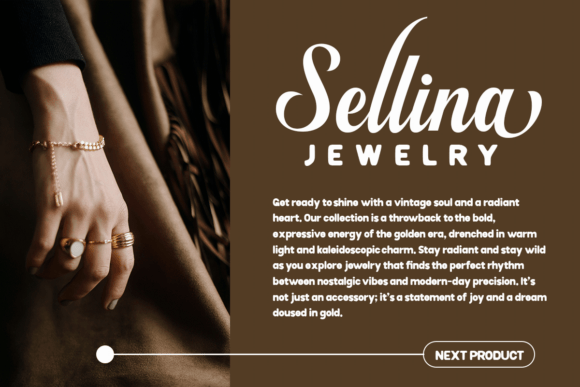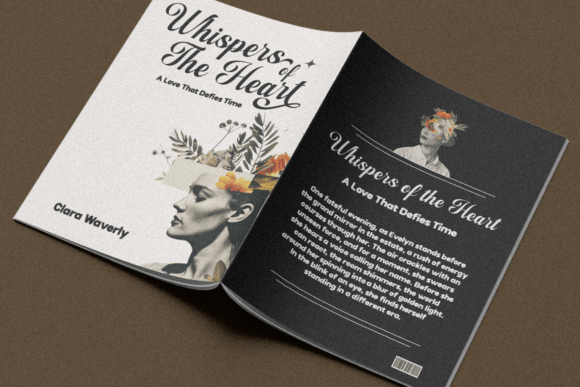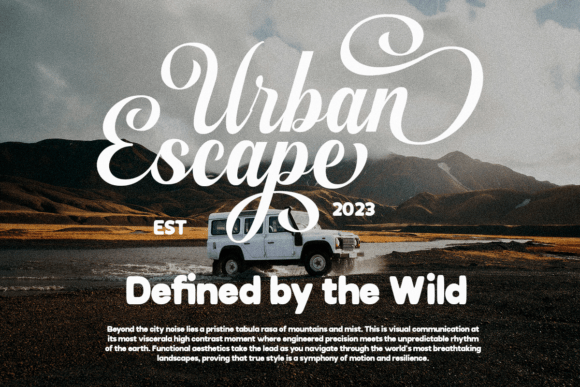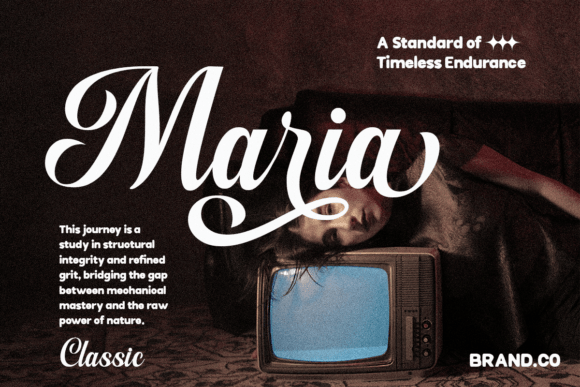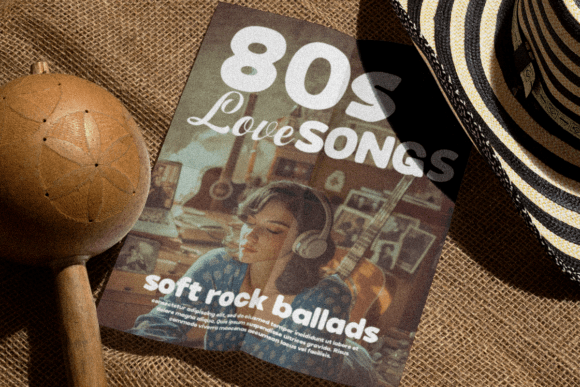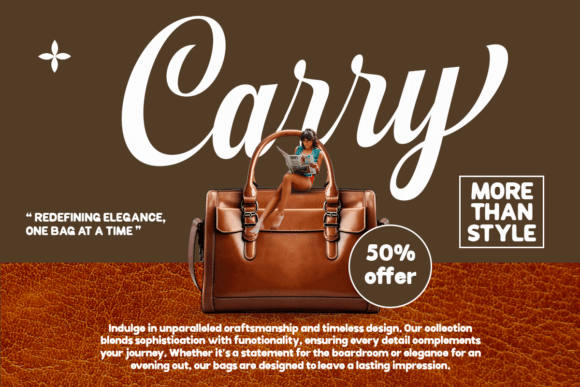
Introducing Aliskan Font Duo: Elevate Your Designs with Timeless Sophistication
In the world of typography, finding the perfect font duo that combines elegance with modernity can be a daunting task. However, Aliskan Font Duo has emerged as a game-changer, offering a beautiful blend of classic letterforms and contemporary sans serif styles. This stunning font duo is designed to bring a touch of sophistication to your creative projects, making it an ideal choice for designers and crafters looking to make a statement.
The Perfect Balance of Classic and Modern
Aliskan Font Duo consists of two complementary fonts that work harmoniously together to create a visually appealing contrast. The first font boasts elegant letterforms with subtle curves, stylish ligatures, and intricate details that evoke a sense of luxury and refinement. On the other hand, its bold, clean companion font, Lestina, presents a modern sans serif style that adds a touch of edginess to the duo. This perfect balance between classic beauty and contemporary charm makes Aliskan Font Duo an excellent choice for a wide range of design applications.
One of the standout features of Aliskan Font Duo is its versatility. This font duo is suitable for various design projects, including:
- Branding: Create a lasting impression with a sophisticated brand identity that exudes elegance and refinement.
- Logos: Design a memorable logo that stands out from the crowd with the perfect blend of classic and modern elements.
- Wedding Invitations: Add a touch of luxury and romance to your wedding invitations with Aliskan Font Duo’s elegant letterforms.
- Packaging: Elevate your packaging design with a classy and sophisticated look that reflects your brand’s personality.
- Fashion Editorials: Bring a touch of glamour to your fashion editorials with Aliskan Font Duo’s stylish and modern aesthetic.
- Social Media: Stand out on social media with eye-catching graphics and typography that showcase your brand’s personality.
- Luxury Design Projects: Create stunning luxury designs that exude sophistication and refinement with Aliskan Font Duo.
Key Features of Aliskan Font Duo
Aliskan Font Duo comes with a range of features that make it an excellent choice for designers and crafters. Some of its key features include:
- Elegant Letterforms: Experience the beauty of classic letterforms with subtle curves and stylish ligatures.
- Modern Sans Serif Style: Add a touch of modernity to your designs with Lestina, the bold and clean companion font.
- Timeless Sophistication: Bring a sense of luxury and refinement to your designs with Aliskan Font Duo’s timeless aesthetic.
- Versatility: Use Aliskan Font Duo for a wide range of design applications, from branding and logos to wedding invitations and packaging.
Why Choose Aliskan Font Duo?
In a world where typography plays a crucial role in design, Aliskan Font Duo stands out as an exceptional choice for designers and crafters. Here are some reasons why you should consider using Aliskan Font Duo:
- Unique and Memorable: Create unique and memorable designs that stand out from the crowd with Aliskan Font Duo.
- High-Quality Typography: Experience high-quality typography that is both elegant and modern.
- Support for Multiple Languages: Use Aliskan Font Duo for multiple languages, making it an excellent choice for global design projects.
| Font Name | Aliskan Font |
| Author | madjack.font |
Aliskan Font Duo is an exceptional font duo that offers a perfect blend of classic elegance and modern sophistication. With its elegant letterforms, stylish ligatures, and bold, clean companion font, this font duo is ideal for designers and crafters looking to elevate their designs. Whether you’re working on branding, logos, wedding invitations, packaging, or luxury design projects, Aliskan Font Duo delivers a classy and versatile look that stands out effortlessly. Experience the power of Aliskan Font Duo and take your designs to the next level.